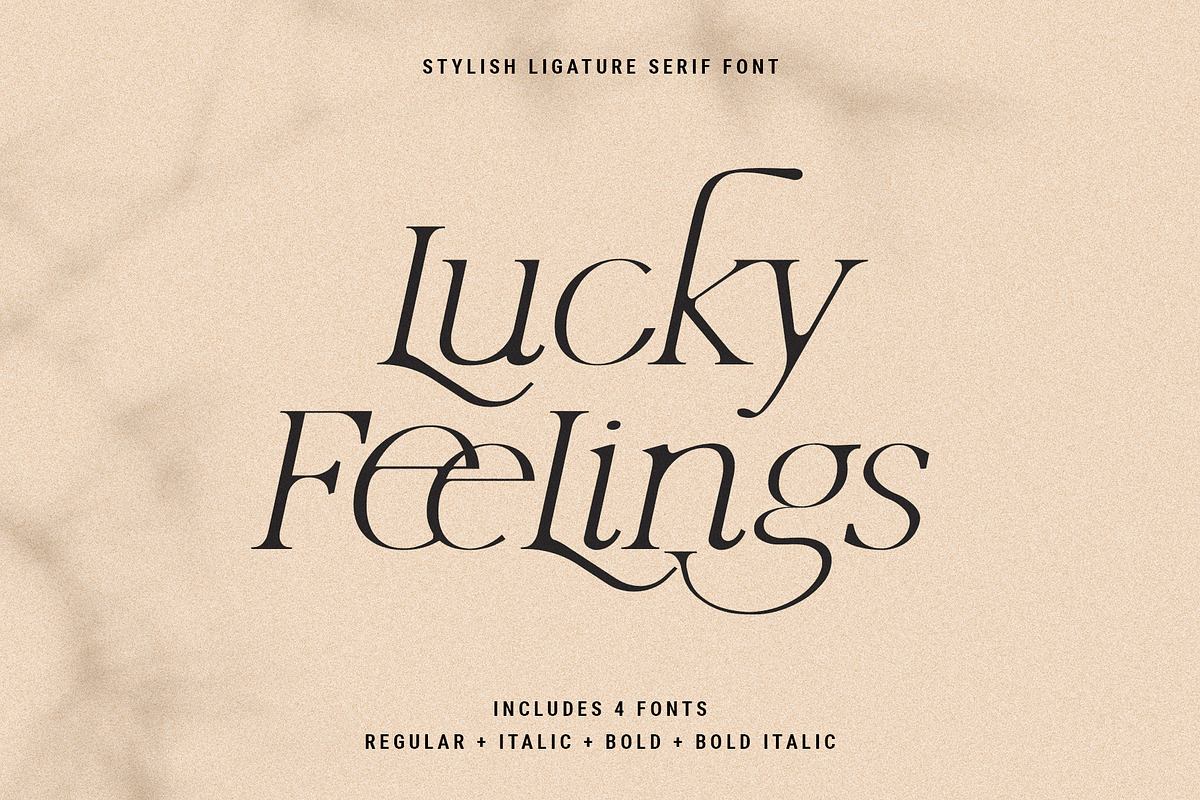
Lucky Feelings Serif Font Family Free Download is a charming and versatile typeface collection that brings warmth and elegance to your design projects. With a blend of classic serif structure and playful character, this font family is ideal for branding, wedding designs, packaging, editorial layouts, and more. It features multiple weights and styles, giving you the flexibility to craft cohesive and beautifully layered typography.
Whether you're creating a heartfelt logo or a stylish magazine spread, Lucky Feelings Serif Font Family Free Download delivers a refined yet approachable look. Each weight is carefully balanced for readability and aesthetic appeal, making it a great choice for both headlines and body text.